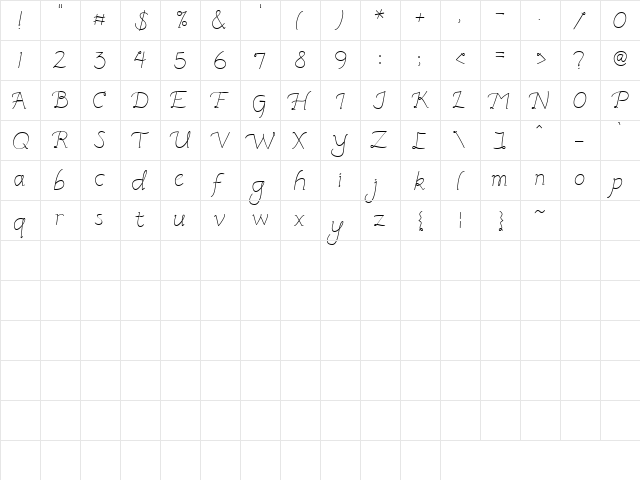
CK Italic Regular
Design Context for CK Italic Typeface
CK Italic is a composed and adaptable typeface that performs quietly and consistently across a wide range of design contexts. The slanted form adds forward momentum and visual energy.
Pro Tip: Try CK Italic for annotation and caption copy alongside an upright companion — the contrast in angle creates a dynamic but ordered typographic system.